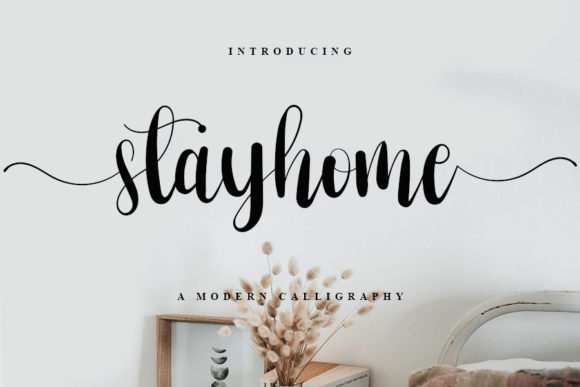
Stayhome Font
Introducing Stayhome Font - A Festive, Delightful Script for Winter!
Embark on a heartwarming journey with Stayhome, an enchanting script font crafted by FreshTypeINK. Its delicate strokes and classy allure will ignite your creative spirit.
Let Stayhome weave its magic through your winter-themed projects. From cozy letterheads to heartwarming titles, it's the perfect font to capture the essence of this magical season. Its PUA encoding unlocks a treasure trove of glyphs and swashes, empowering you to express your creativity effortlessly.
Whether you're a seasoned designer or a budding enthusiast, Stayhome is the perfect font to add a touch of wintery charm to your creations. Its elegant curves and graceful flourishes will elevate your designs, making them truly unforgettable.
Embrace Stayhome this winter and let its festive spirit inspire your most beautiful creations yet!